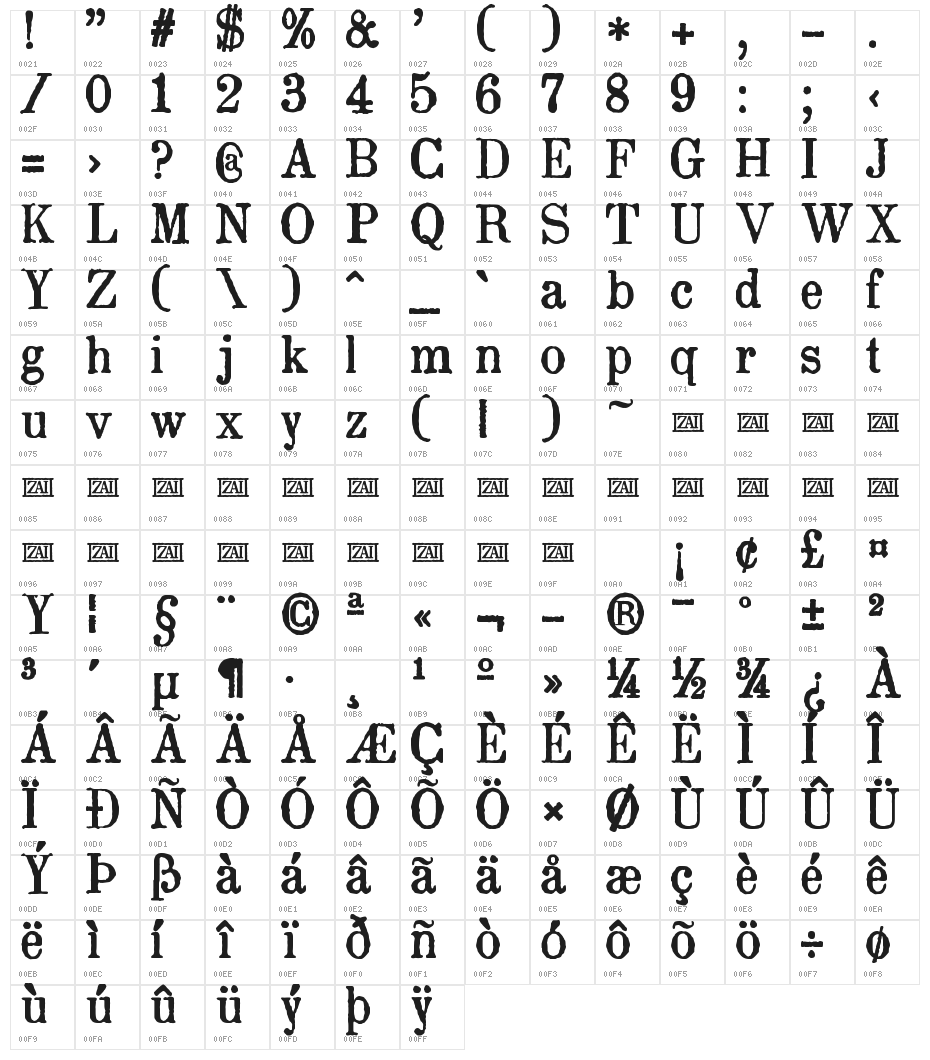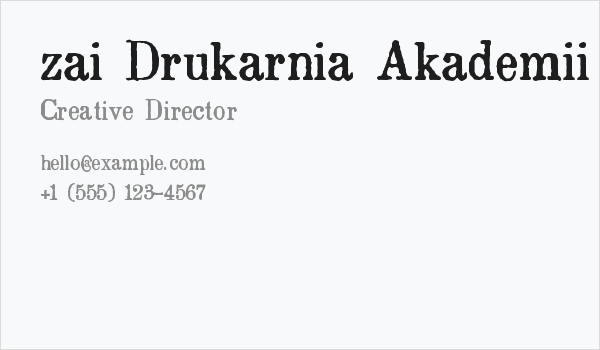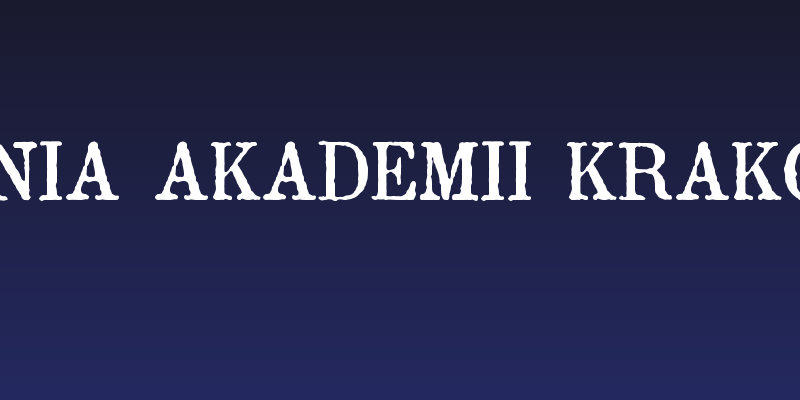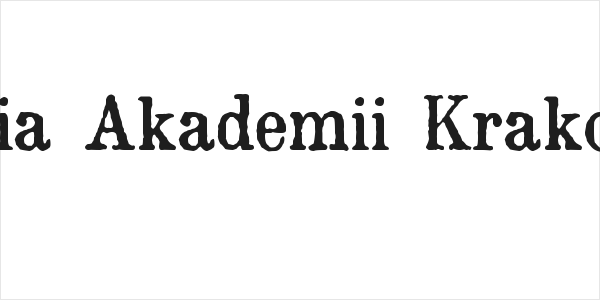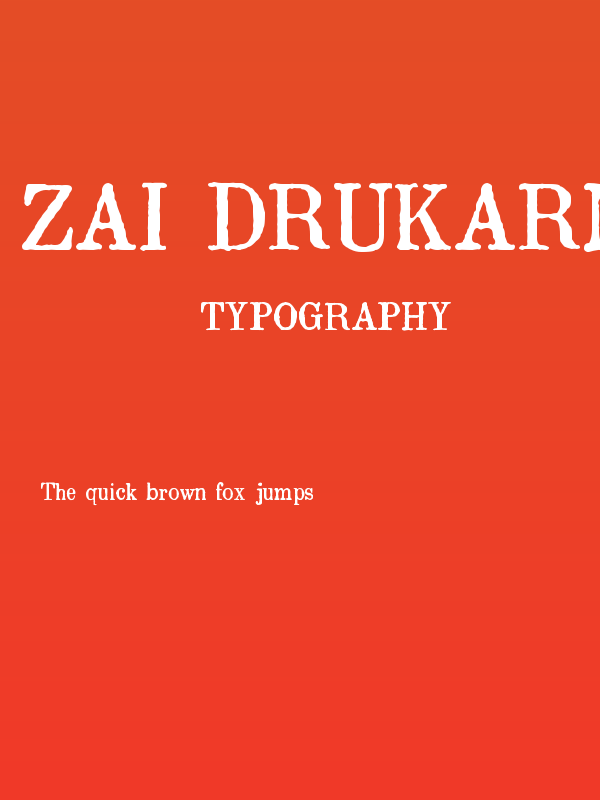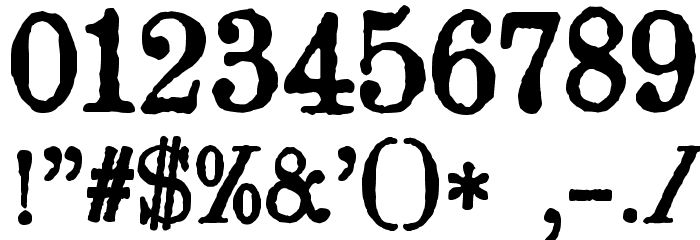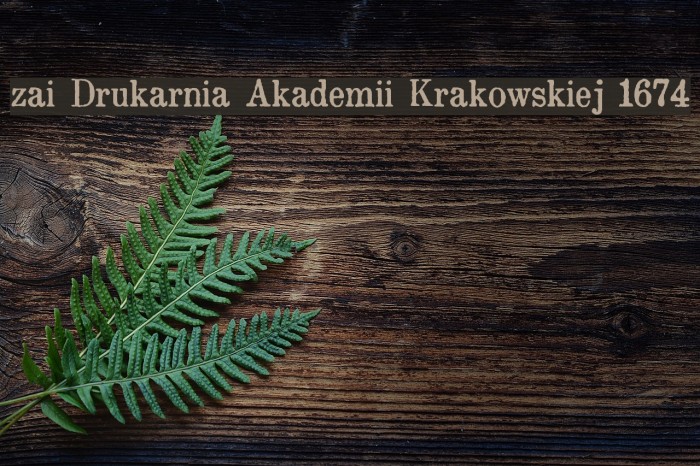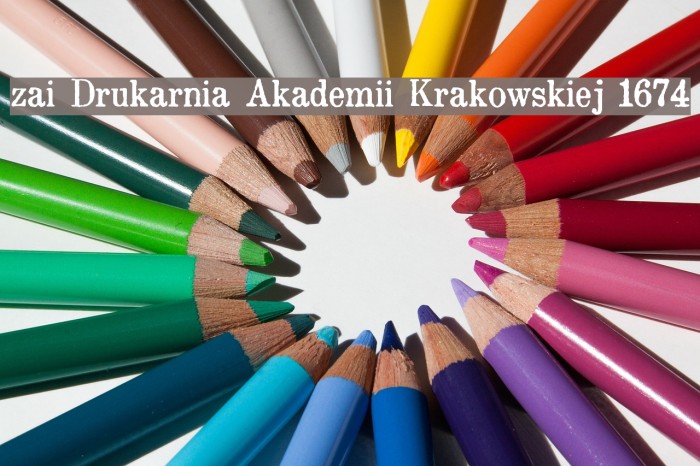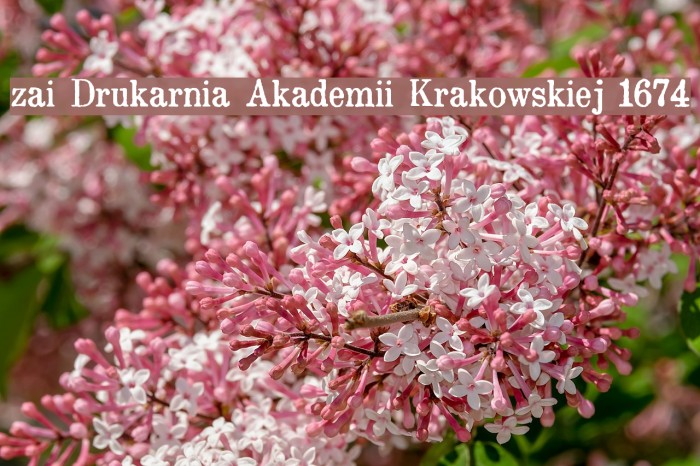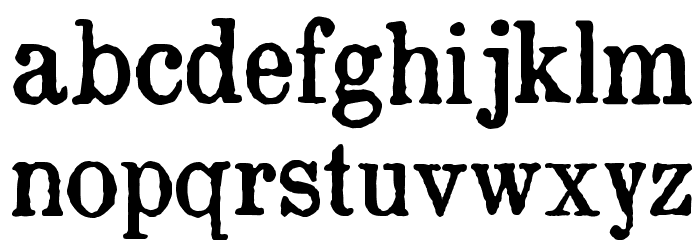
zai Drukarnia Akademii Krakowskiej 1674 Font
This font exhibits a classic serif style with pronounced, thick strokes and slightly rounded edges, giving it a robust and traditional appearance. The uppercase letters are bold and commanding, while the lowercase letters maintain a consistent weight, ensuring readability. The numerals are distinct and well-proportioned, complementing the overall aesthetic. Special characters are crafted with the same attention to detail, making them suitable for various applications. The font's historical influence is evident in its design, reminiscent of early printing press styles, which adds a touch of vintage charm.
| Overall Style | Vintage |
| Use Case | Headlines, Logos, Book covers |
| Proposed Projects | Ideal for historical publications, book covers, formal invitations, and branding that requires a classic touch. |